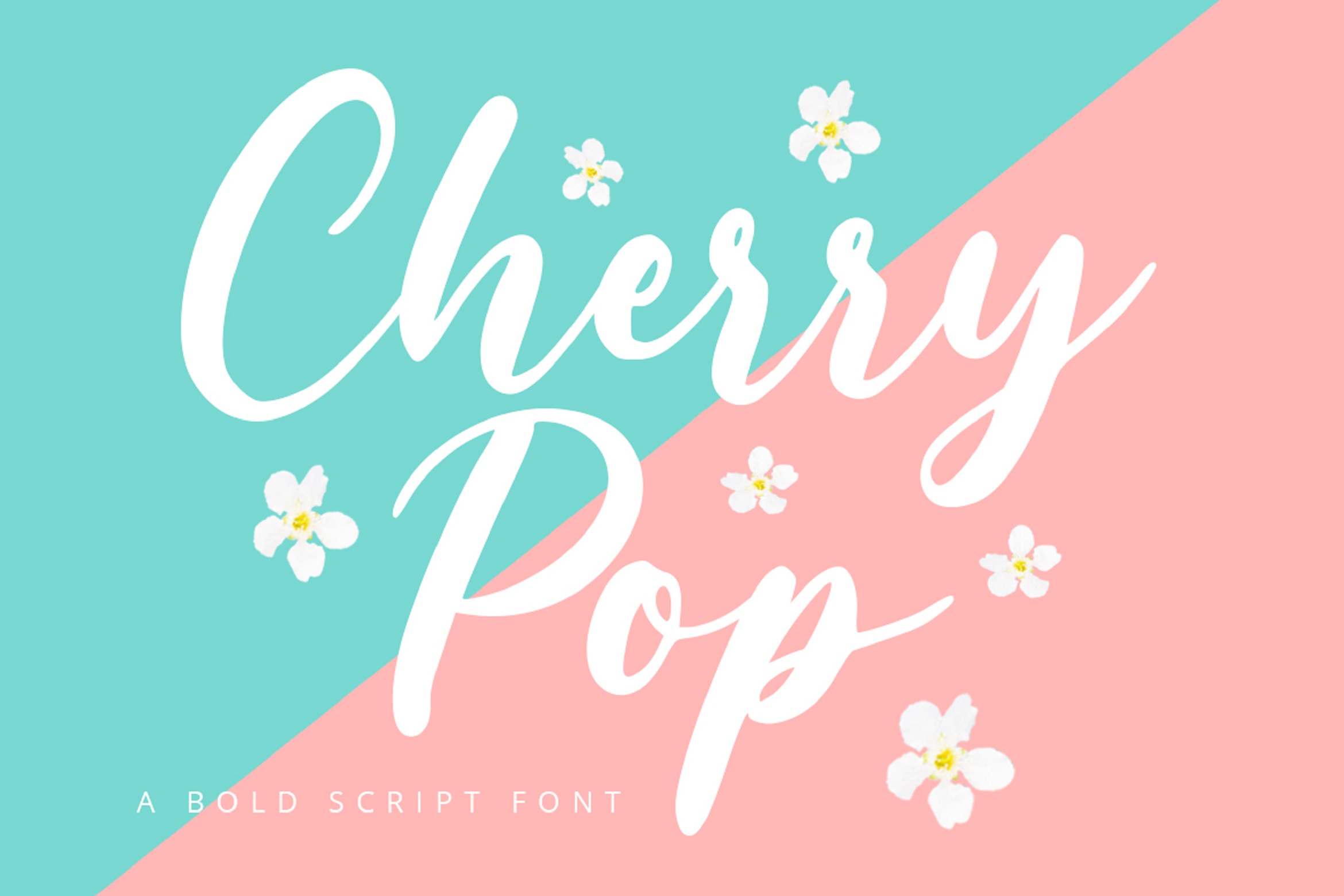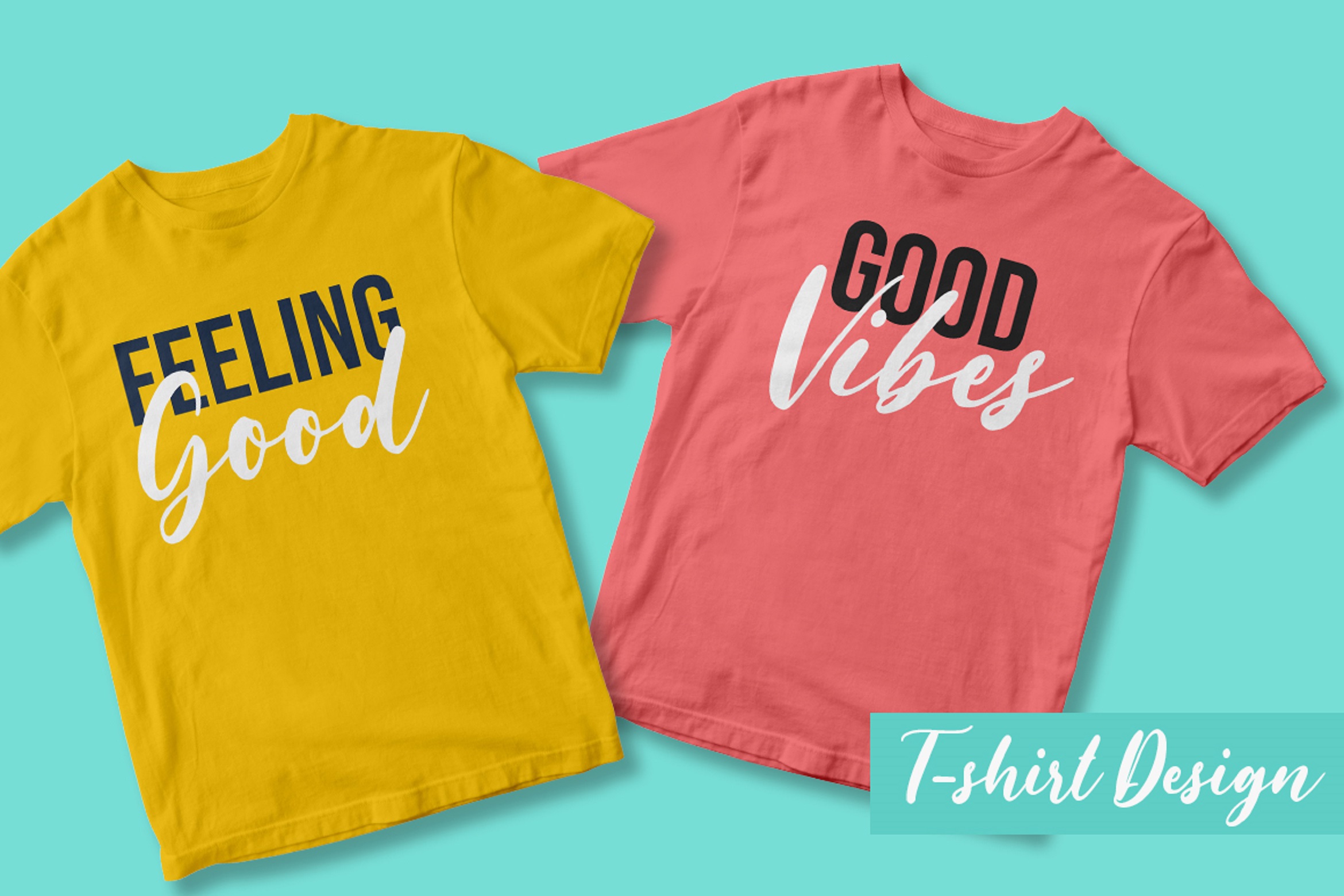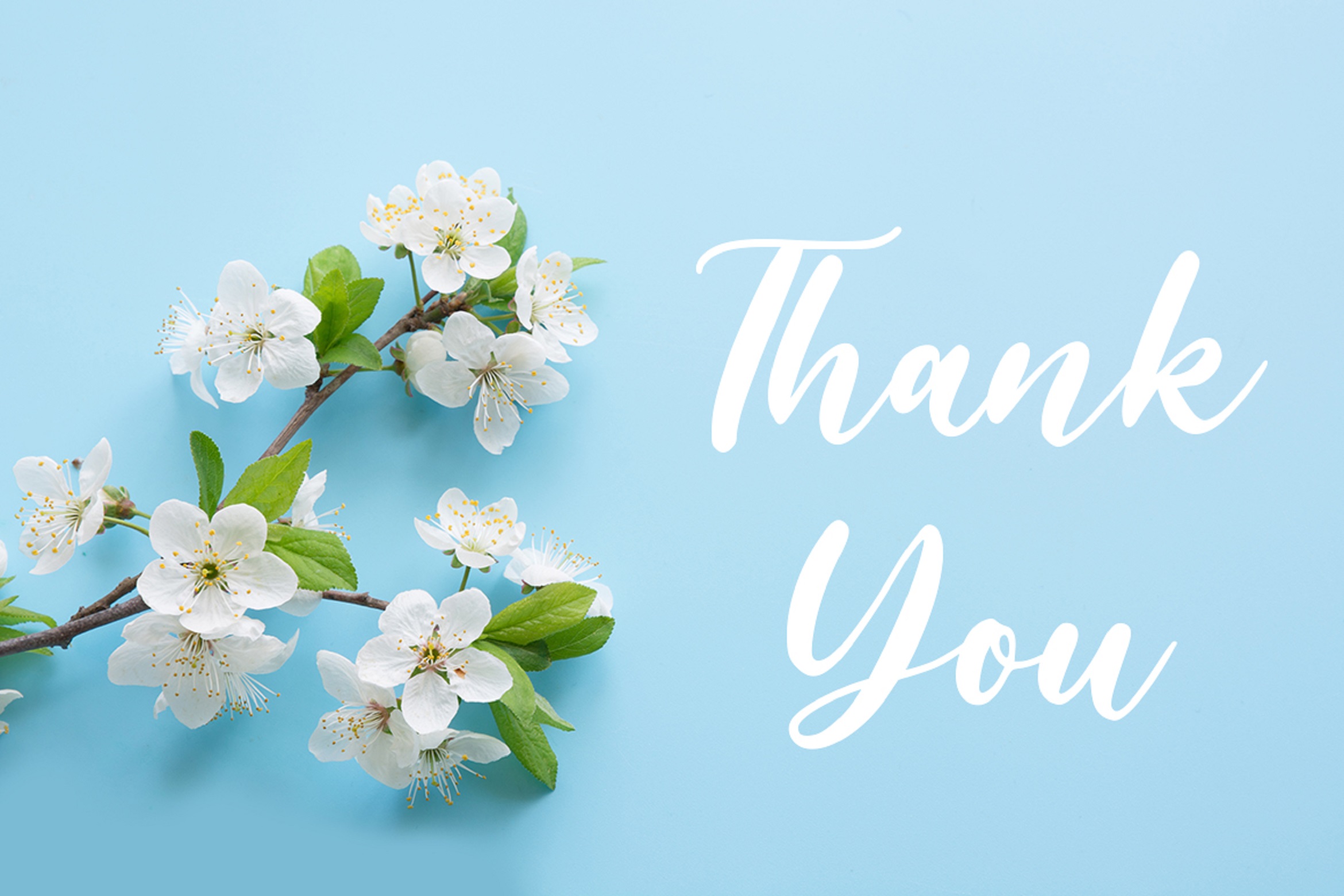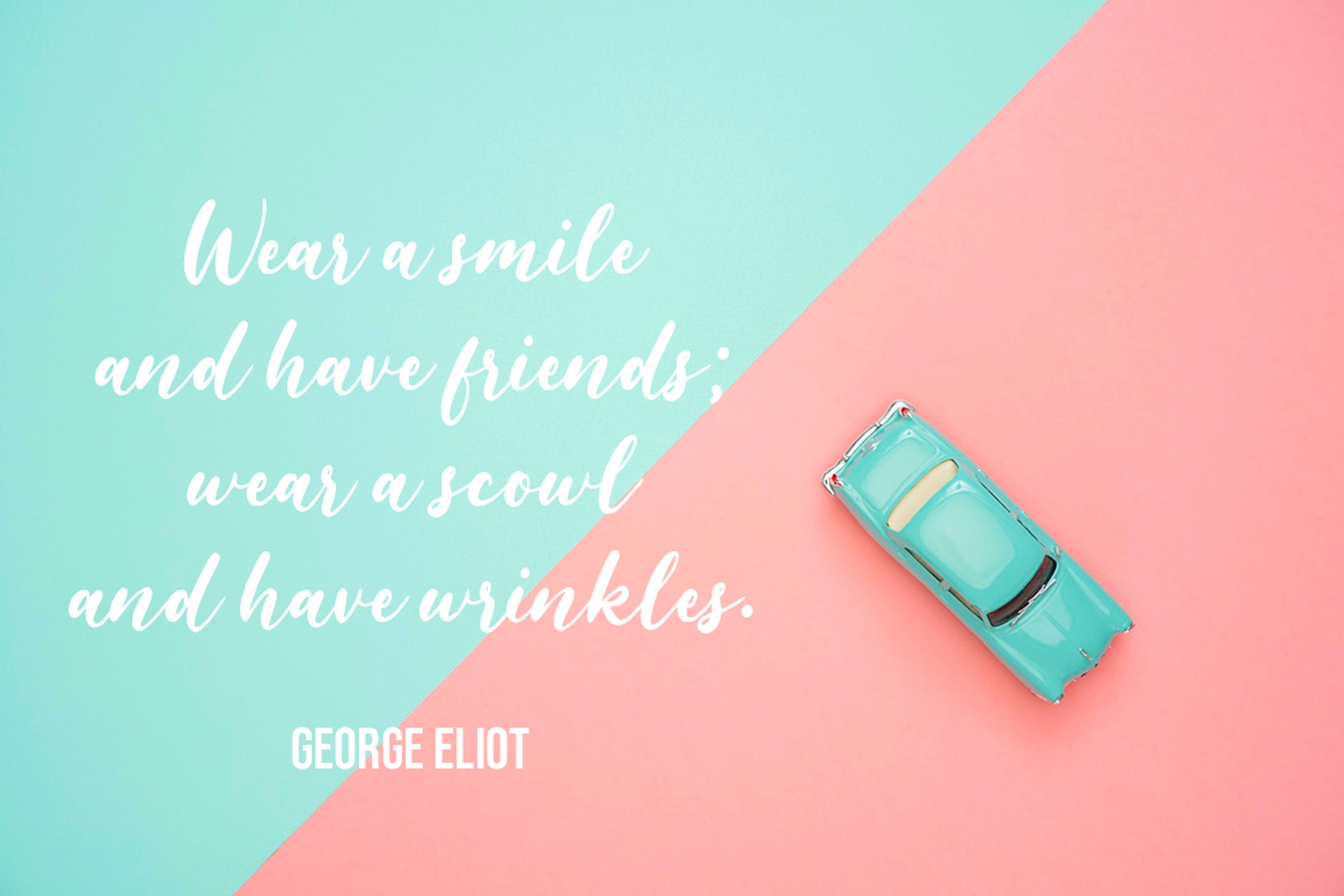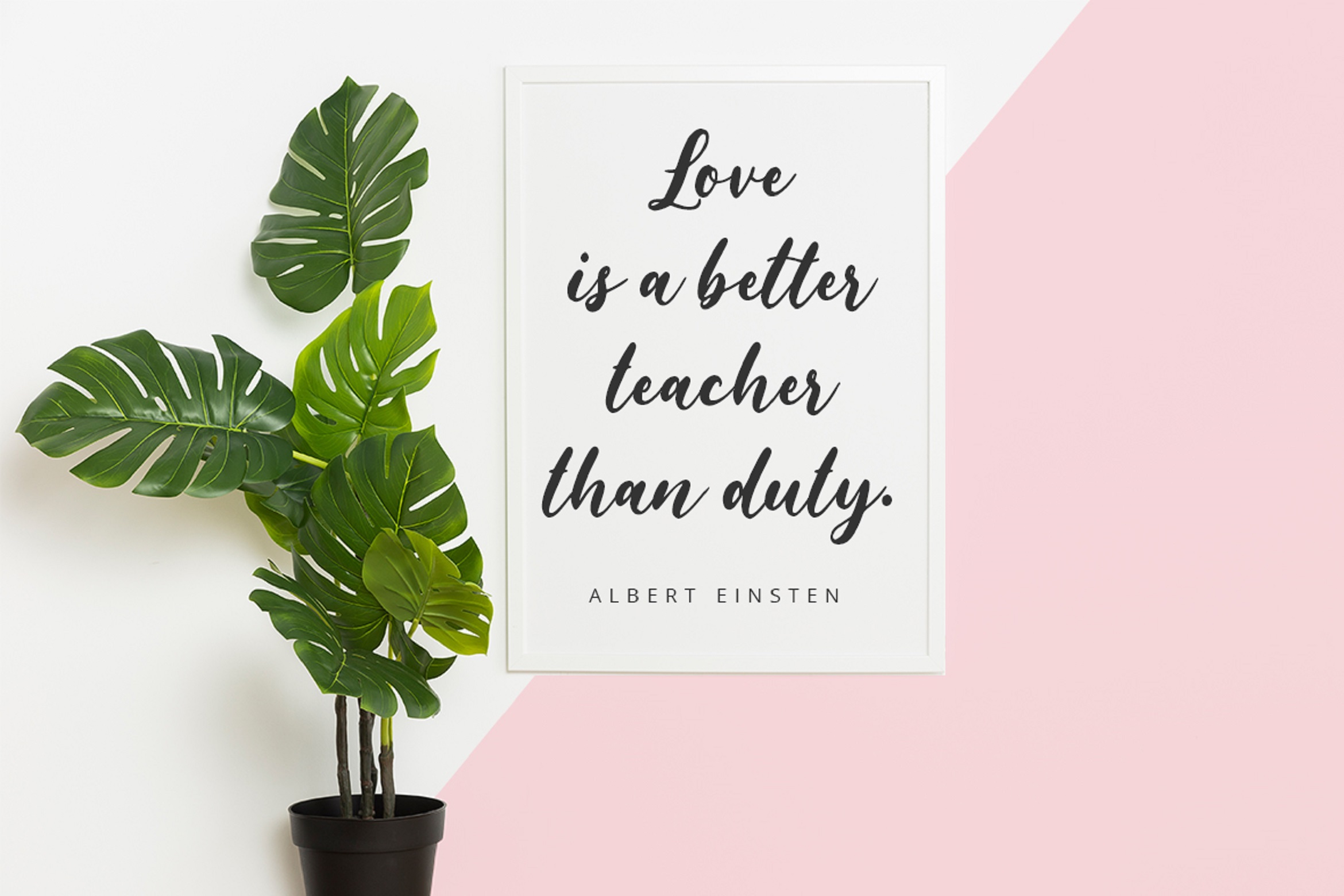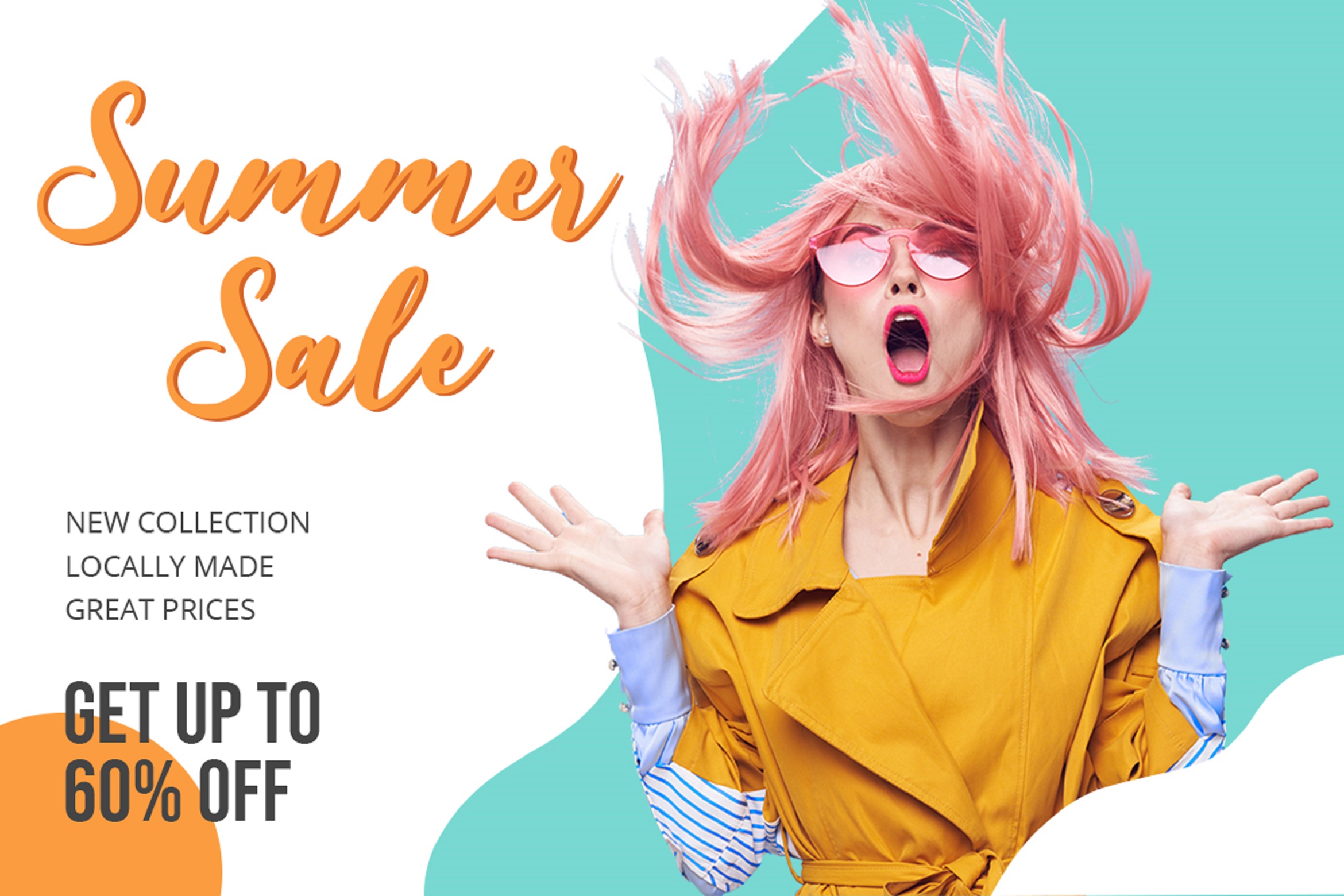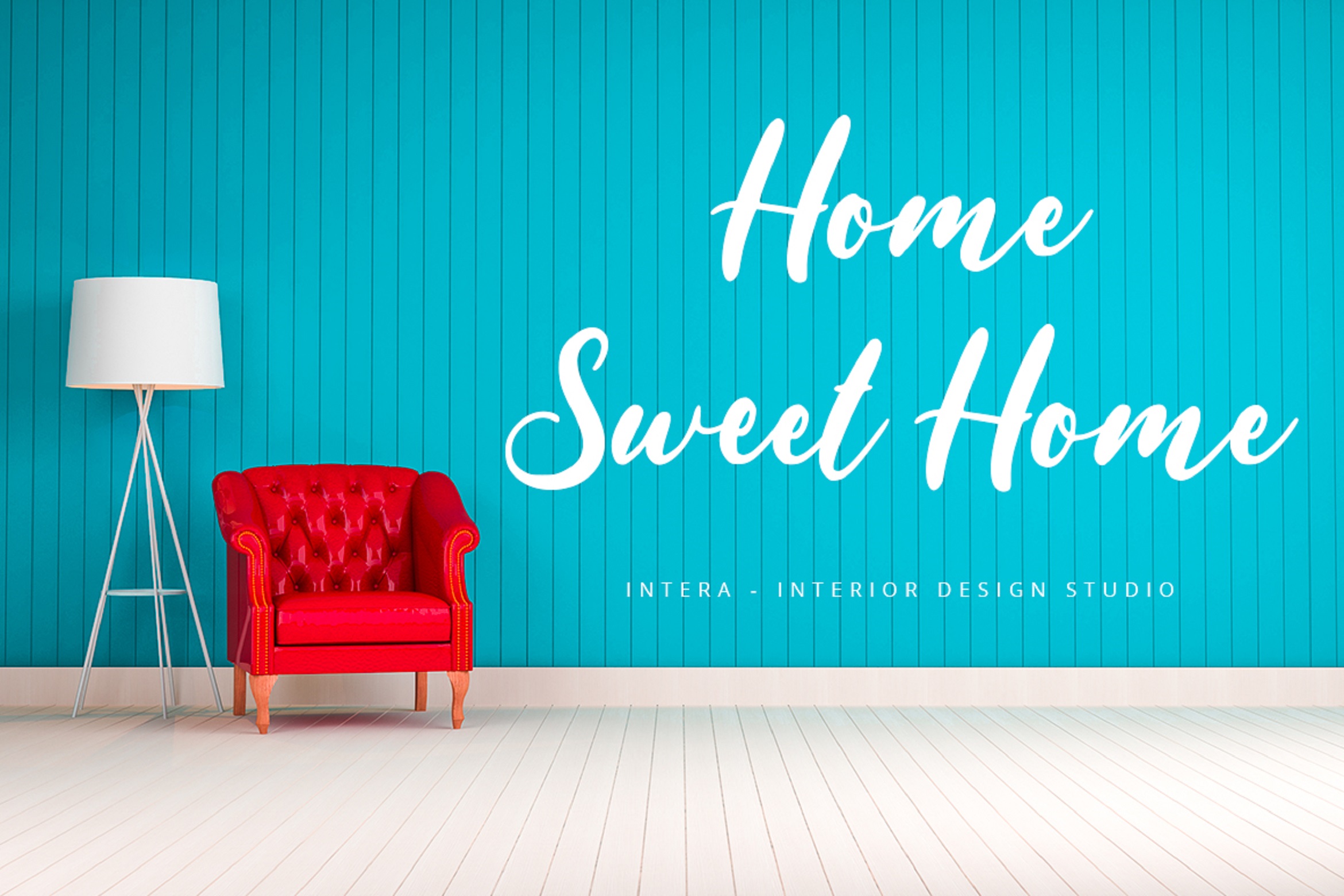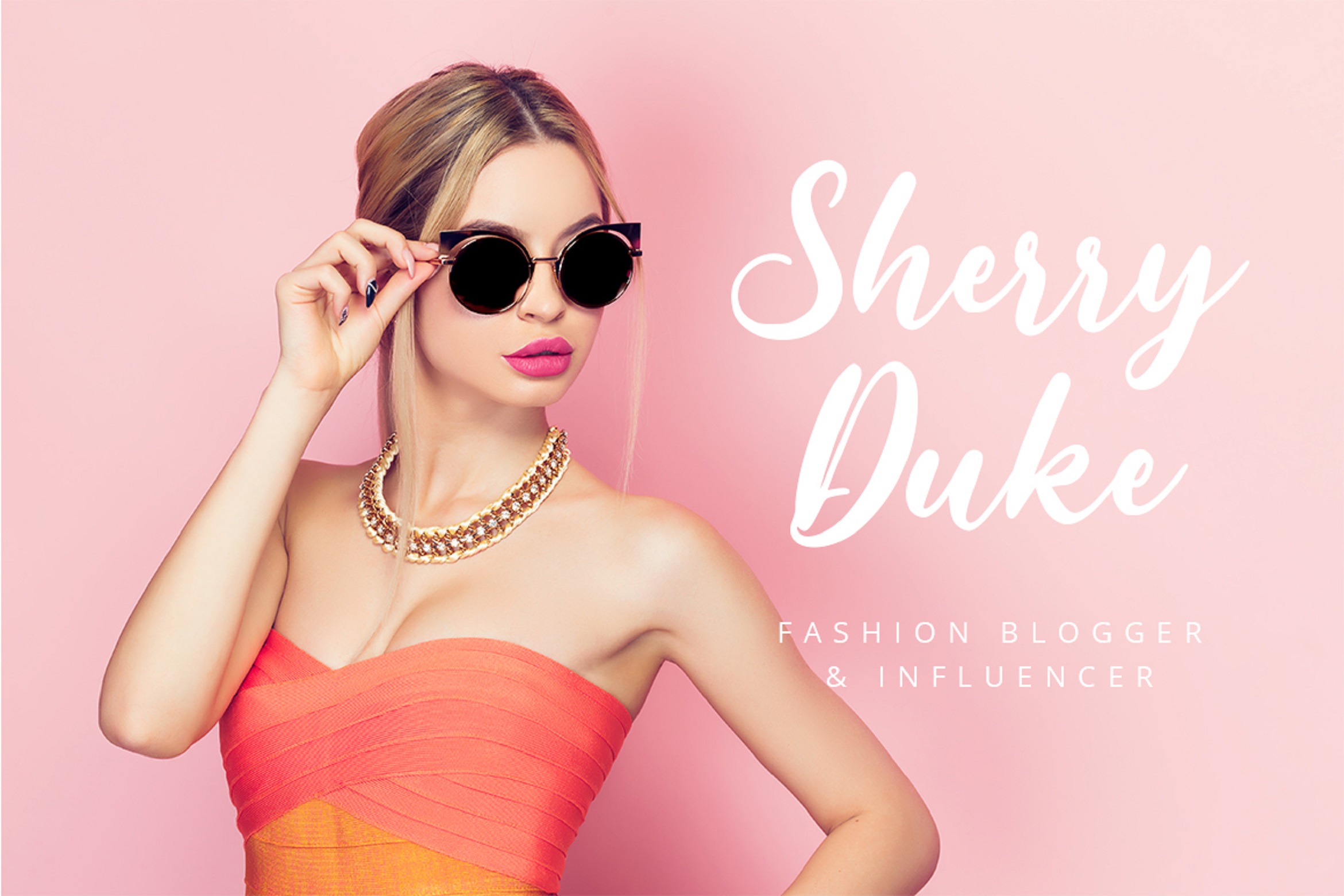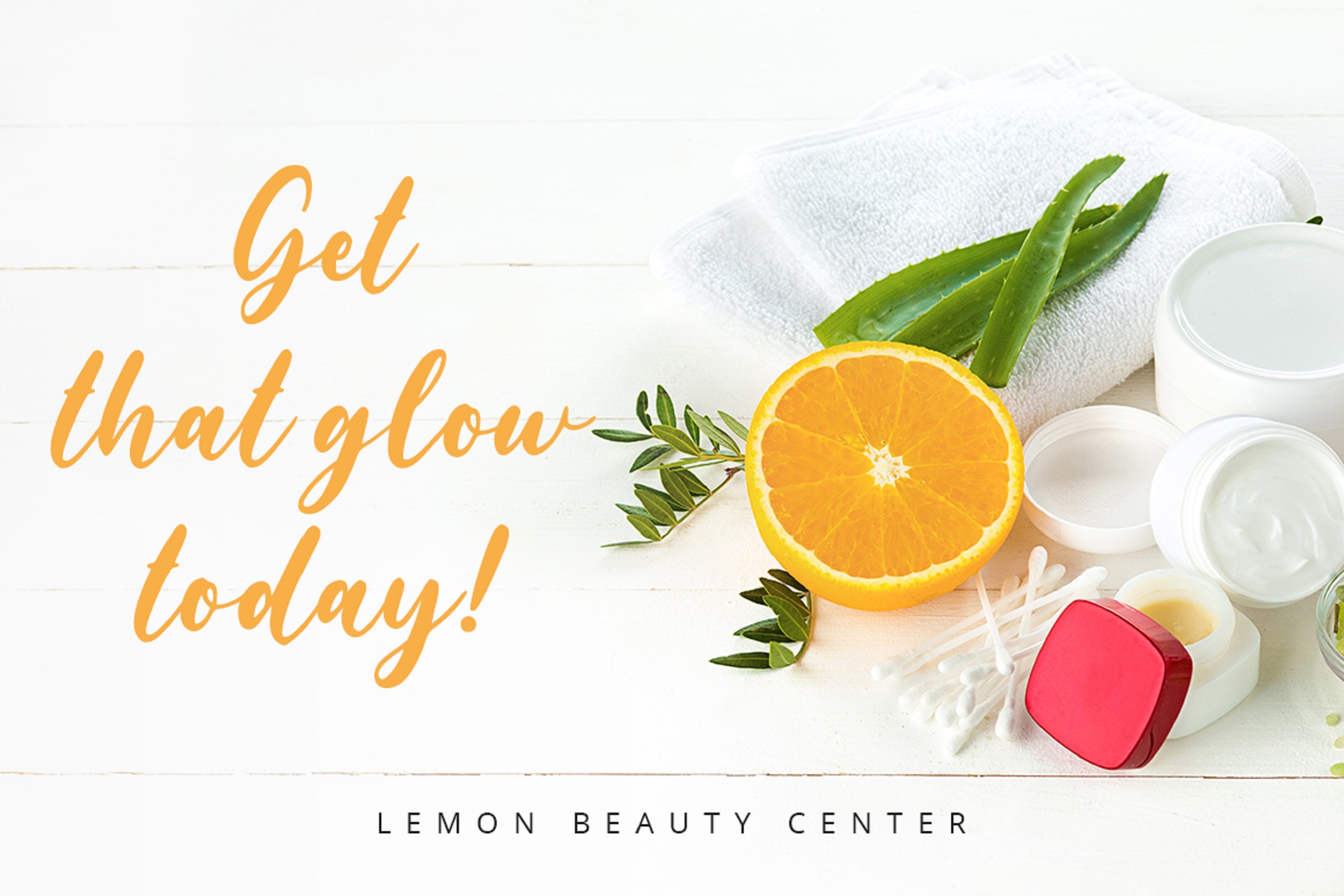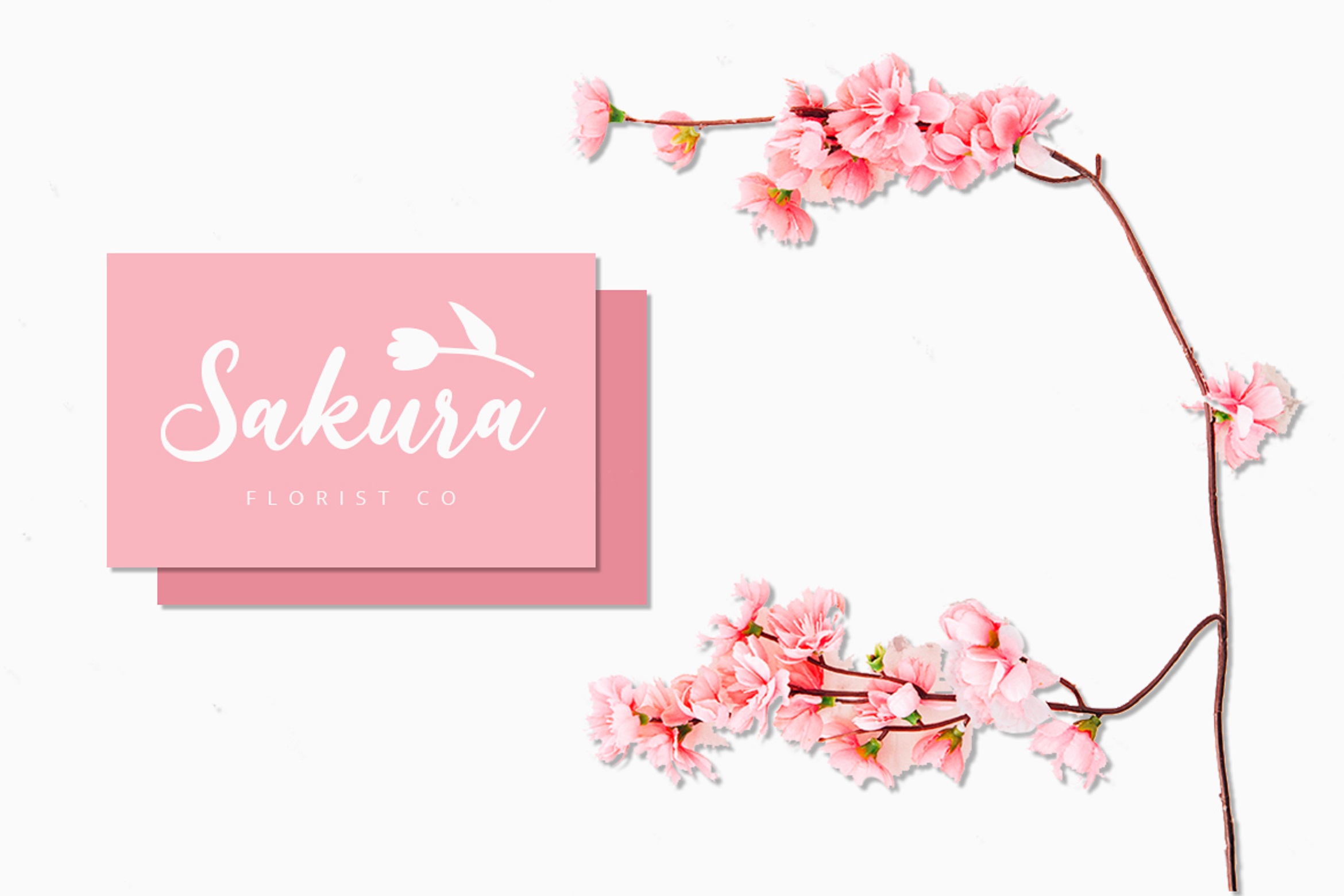
Cherry Pop
Introducing Cherry Pop – A Bold Script Font.
Giving you a simple, yet gorgeous solution to your branding. Bring your projects to life and add a touch of sweetness with Cherry Pop. Use it for headings, logos, business cards, printed quotes, invitations of all sorts, cards, packaging, and your website or social media branding.
- Multilingual & Ligature Support
- Full sets of Punctuation and Numerals